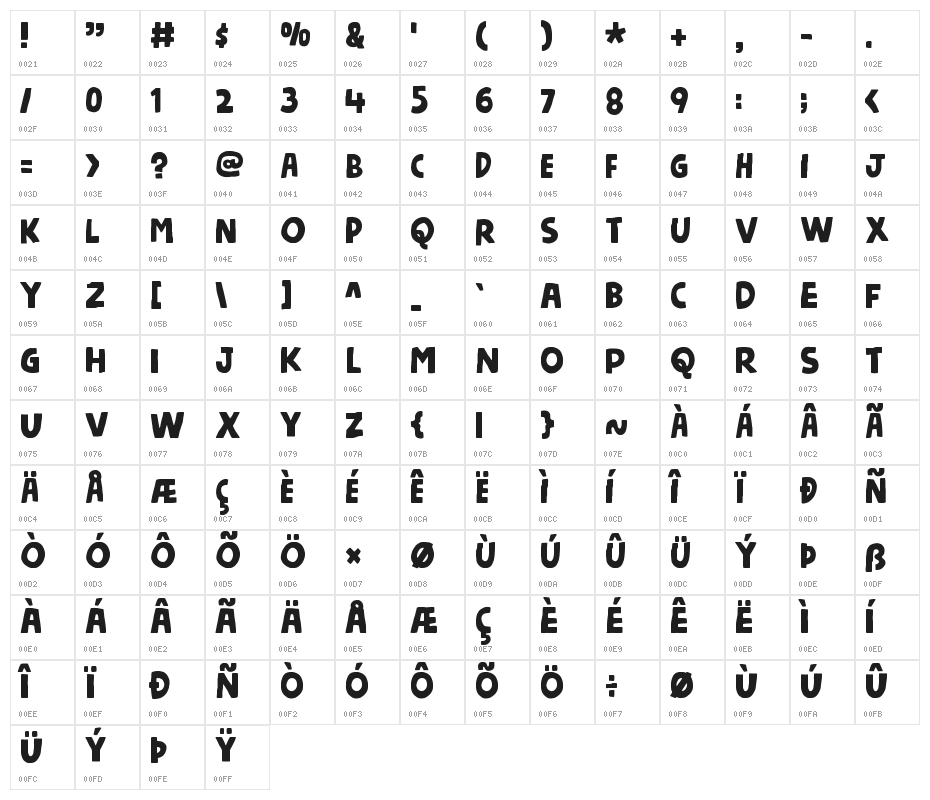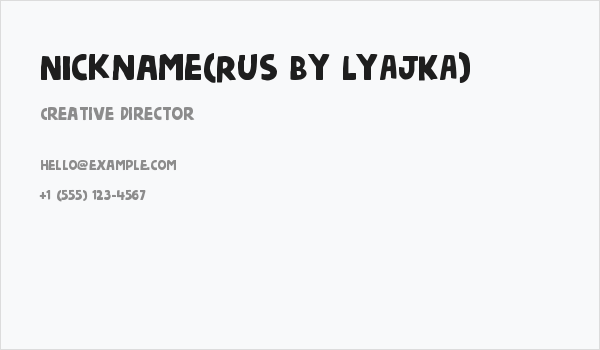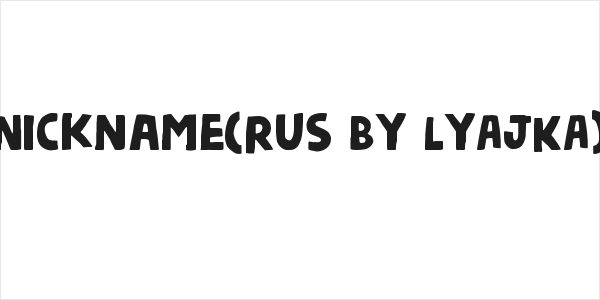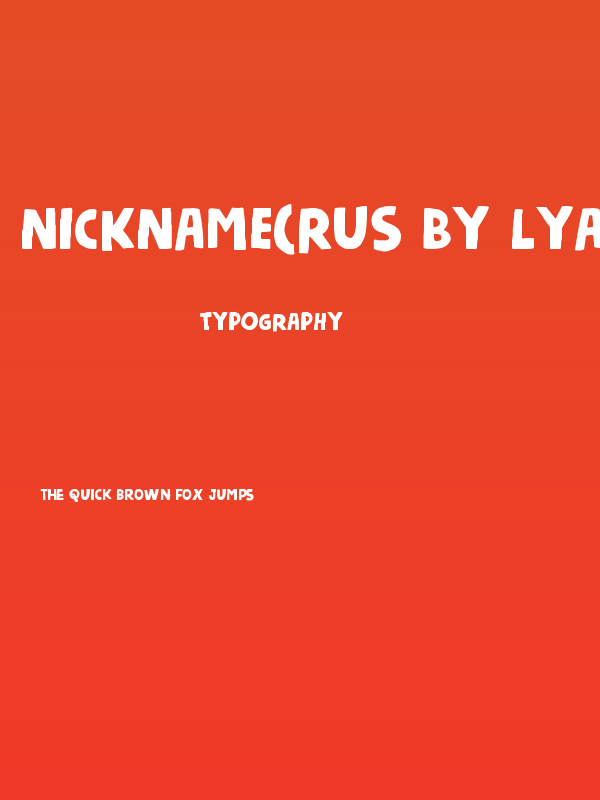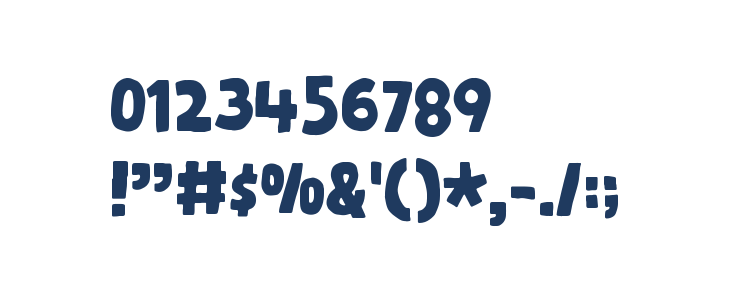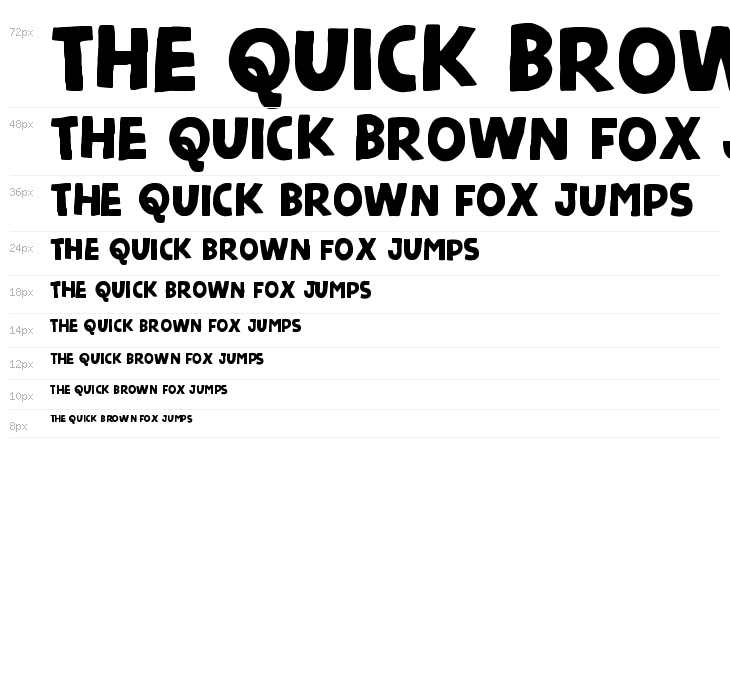
Nickname(RUS BY LYAJKA) Font
Nickname(RUS BY LYAJKA) Description
This font features bold, playful characters with a hand-drawn aesthetic. The letters are thick and rounded, giving them a friendly and approachable look. The uppercase and lowercase letters maintain a consistent style, with slightly exaggerated curves and a whimsical feel. The numbers and special characters follow the same design principles, ensuring uniformity across all glyphs. This font is ideal for projects that require a fun and informal tone, such as children's books, comic strips, or playful branding. Its boldness ensures readability while adding a touch of personality to any text.
| Overall Style | Playful, Hand-drawn |
| Proposed Projects | Children's books, comic strips, playful branding, informal posters. |